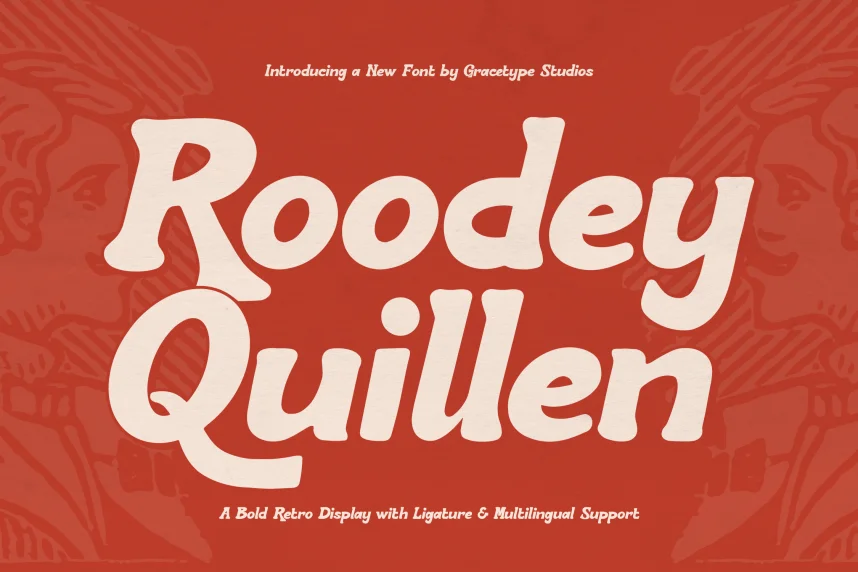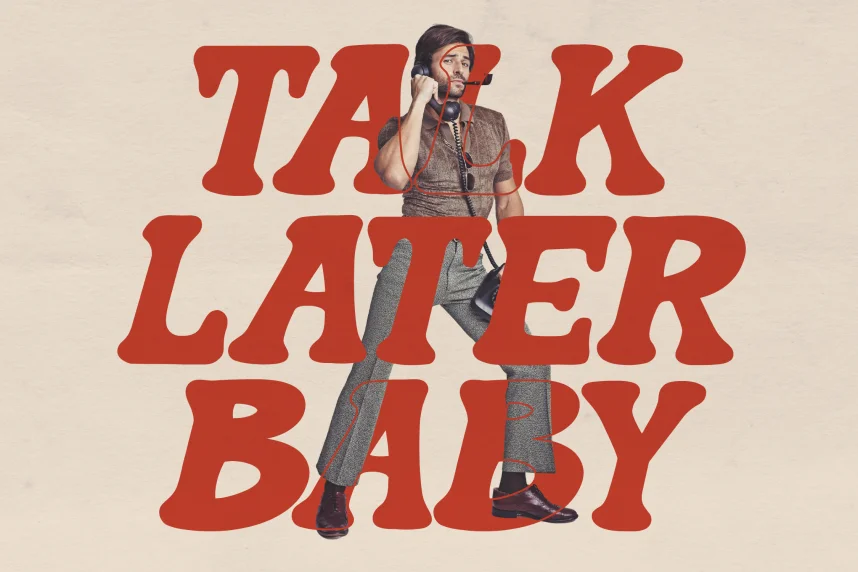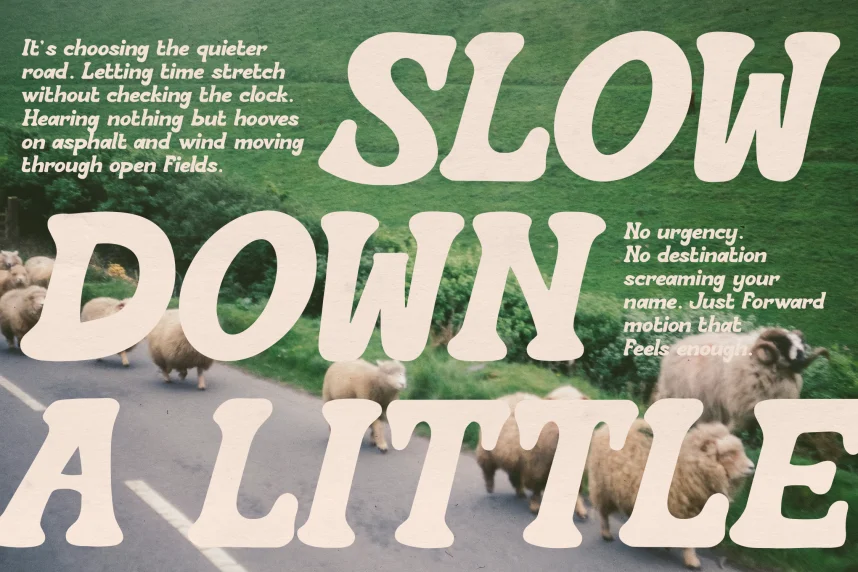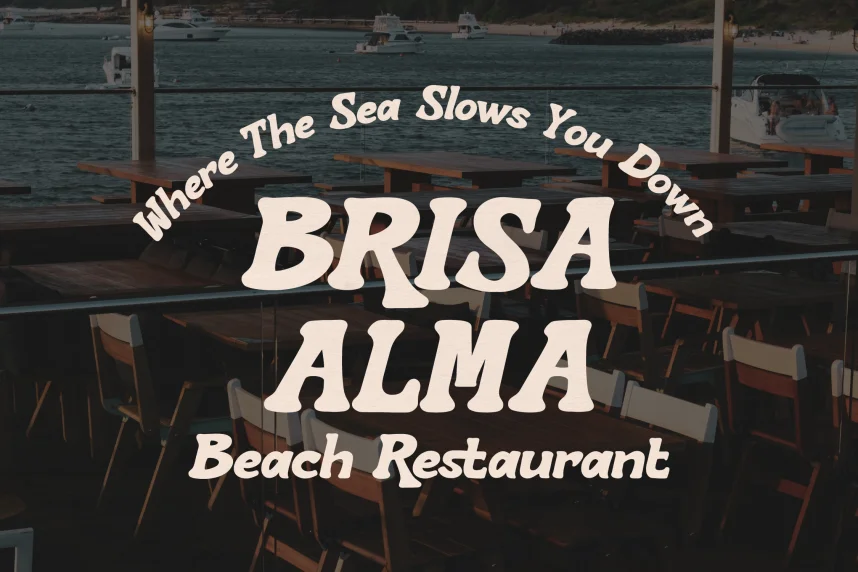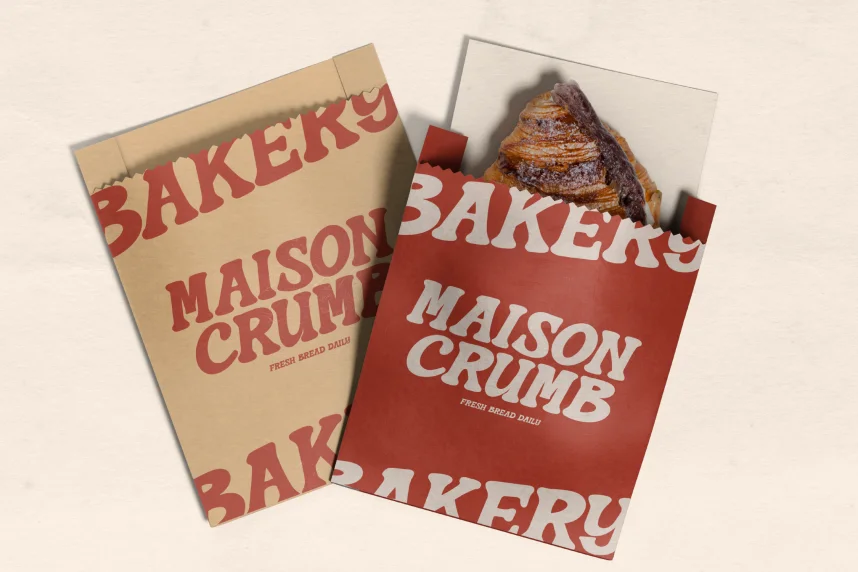
Roodey Quillen Font is a playful, rounded typeface that brings a friendly, approachable feel to any design. Its soft curves and evenly spaced letterforms make it ideal for projects that need to convey warmth and personality, such as logos, branding, and social media posts.